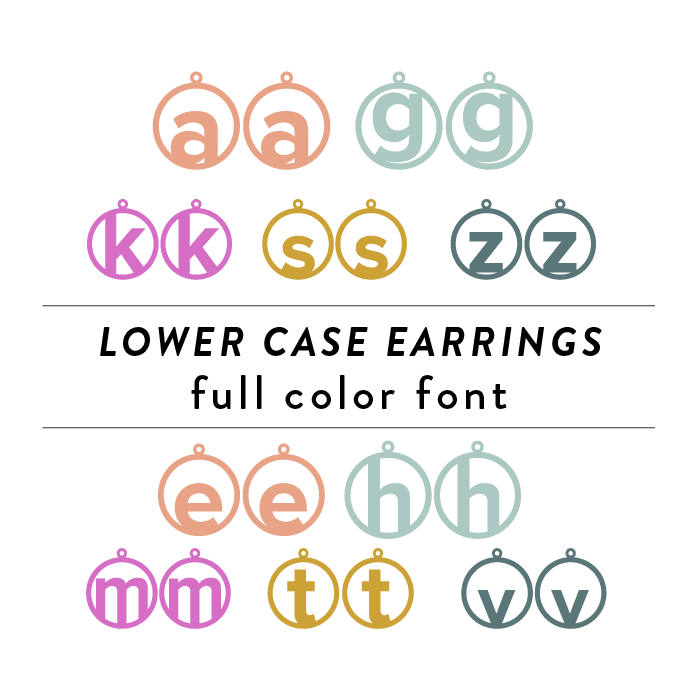
A stylish and trendy font design for lower case monogram earrings. This unique design is perfect for adding a personalized touch to any outfit, making a bold fashion statement. Perfect for those looking to showcase their individuality and style through their accessories. Cut out of a variety of materials or use the assigned colors in the file. This font is a OTF craft font that will appear in color only when used with the silhouette software.